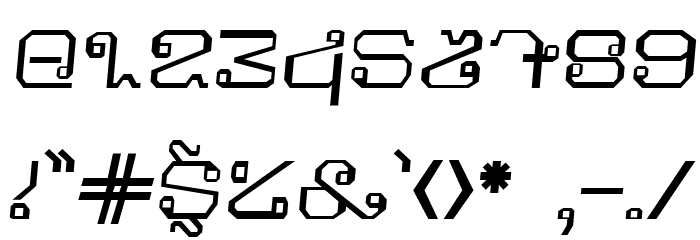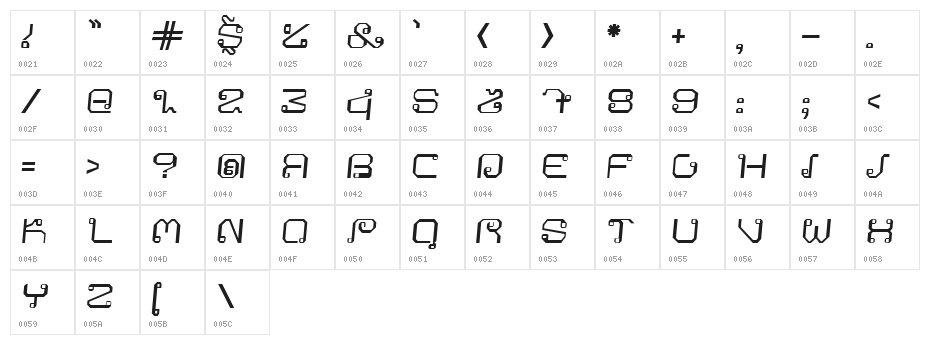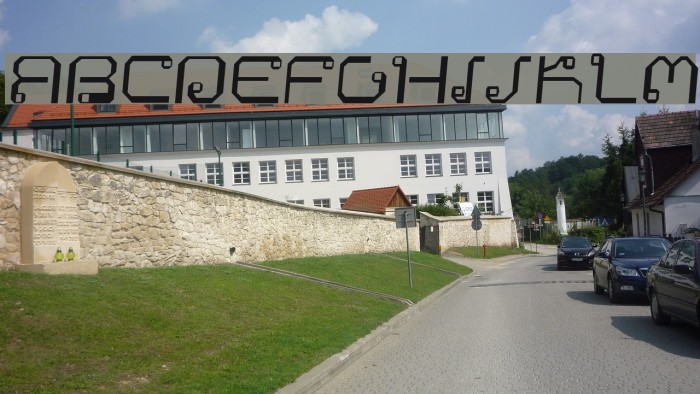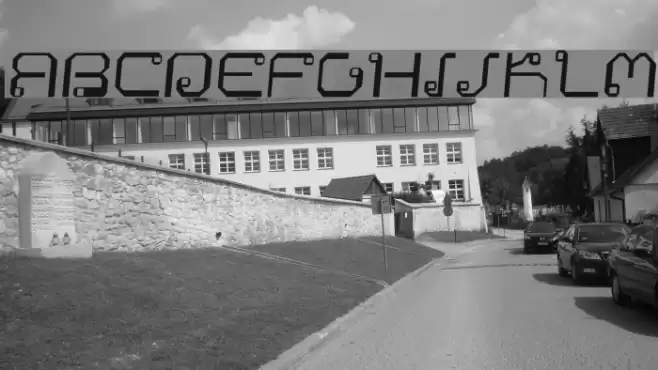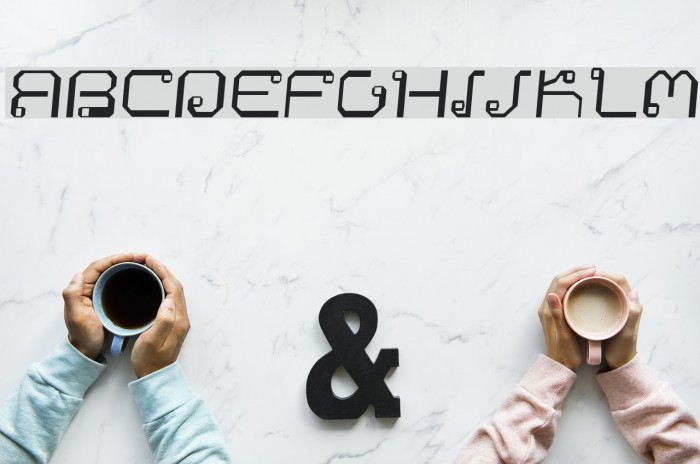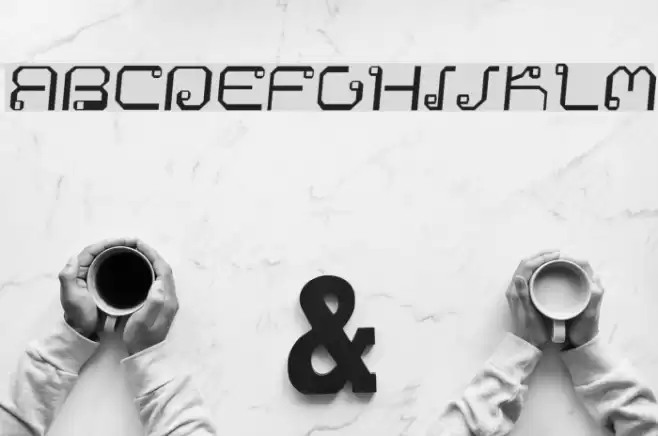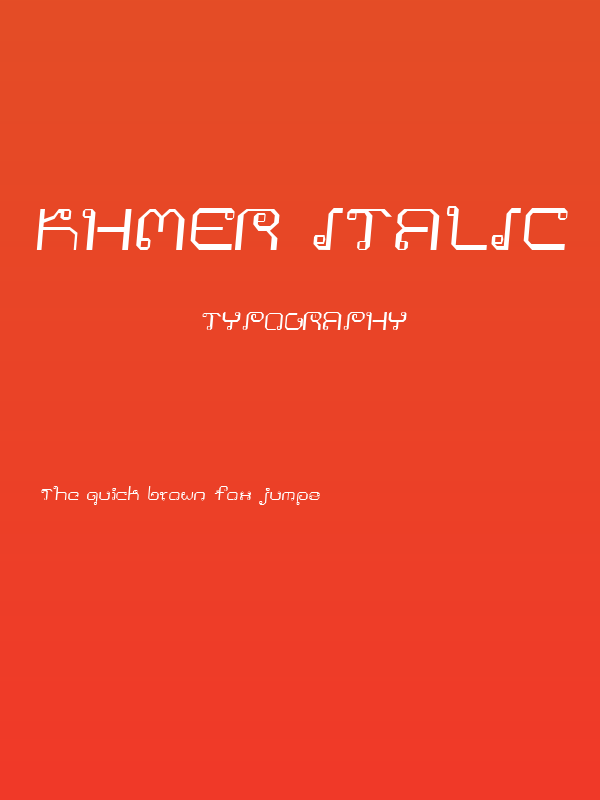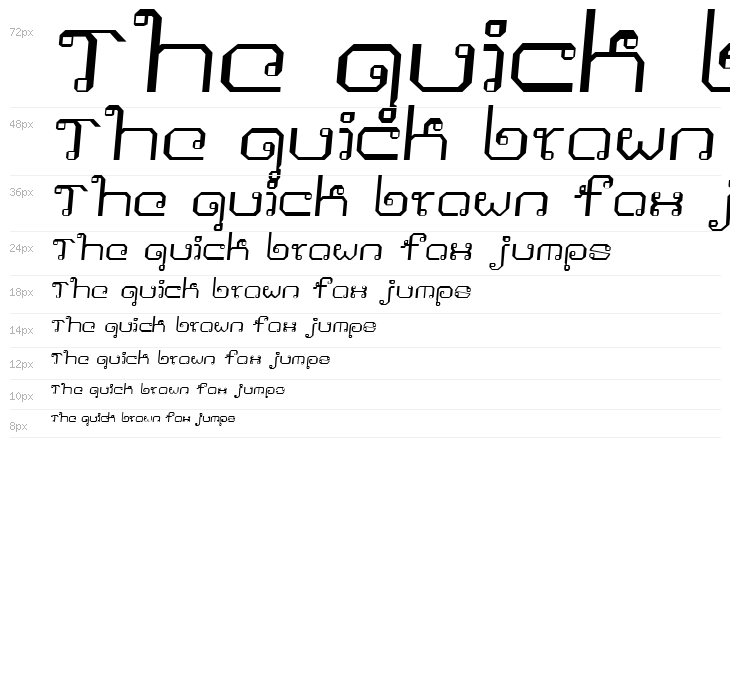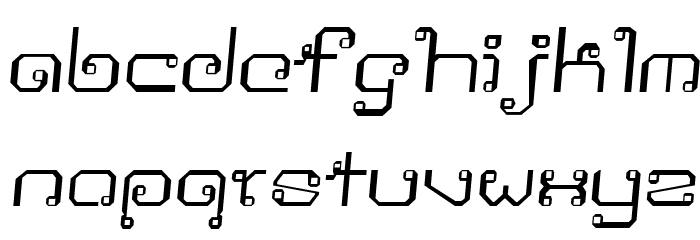
Khmer Italic Font
Khmer Italic Description
This font features a unique and intricate design with a modern twist, characterized by its geometric and angular shapes. The letters are constructed with a combination of straight lines and curves, giving it a futuristic and technical appearance. The font includes both uppercase and lowercase letters, numbers, and a variety of special characters. Its distinct style is reminiscent of digital or electronic themes, making it stand out in any design project. The characters have a consistent stroke width, contributing to a uniform and cohesive look across all glyphs.
| Proposed Projects | Ideal for tech-related branding, digital art, video game interfaces, and futuristic posters. |